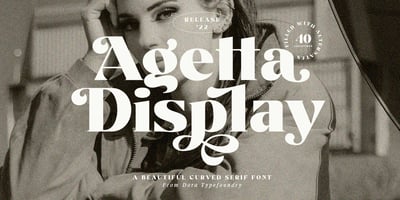
Agetta Display Font Family was designed by Zahratul Laila and published by Dora Typefoundry. Agetta Display contains 1 styles and family package options. Introducing Agetta Display is a bold vintage-style serif font with strong confidence. bold is inspired by something simple, elegant, usable and versatile.This serif typeface that looks amazing in both large and small settings is perfect for your design needs but still clean and elegant to apply to various other formal forms such as invitations, labels, logos, magazines, books, greeting/wedding cards, packaging. , fashion, make up, stationery, novel, label or any kind of advertising purposes.Font Features:Agetta DisplayFeature : Uppercase & Lowercase Alternative Style Standard Ligature Numbers & Punctuation (OpenType Standard) Accents (Multilingual characters) PUA encoded Support Multilingual Language Thank you.